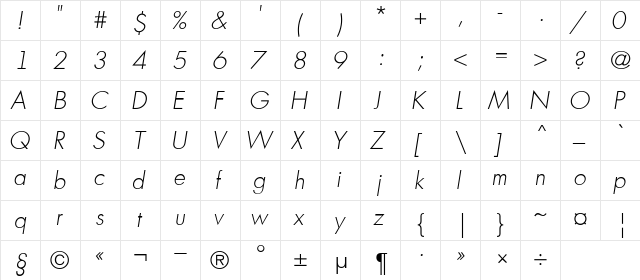
a_FuturicaLt ThinItalic
Design Context for a_FuturicaLt Typeface
a_FuturicaLt channels digital-age aesthetics through its sharp, structured letterforms — ideal for brands that want to signal innovation. The slanted form adds forward momentum and visual energy. Its slender proportions lend an understated elegance to any composition.
Pro Tip: Try a_FuturicaLt with generous letter-spacing in UI labels and navigation — the geometric forms benefit from room to breathe.